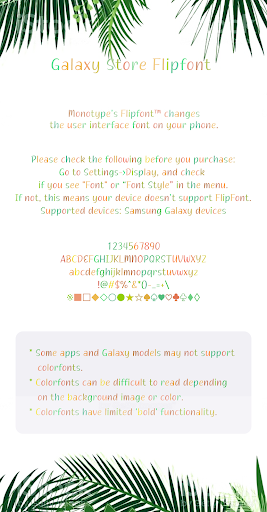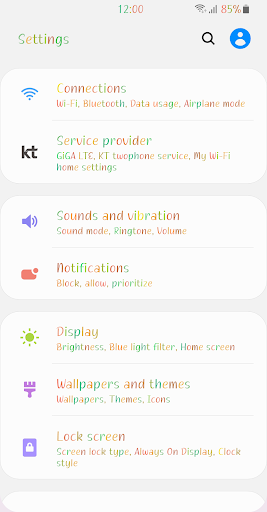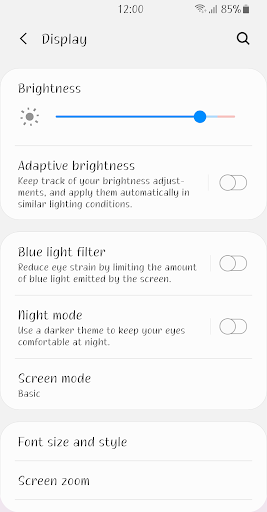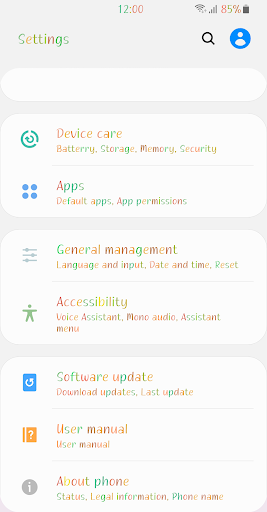
Fine Tropical
This font is a natural and smooth pen writing style font.
You can read the change in thickness according to the movement of the stroke, and it continues smoothly.
The colorful colors come alive as much as the intense impression.
You smell like iridescent fruit that is sweet and refreshing.
Like the emerald-colored sea and the pleasant breeze blowing coolly.
It's so cool that you came to my side at some point. I want you.